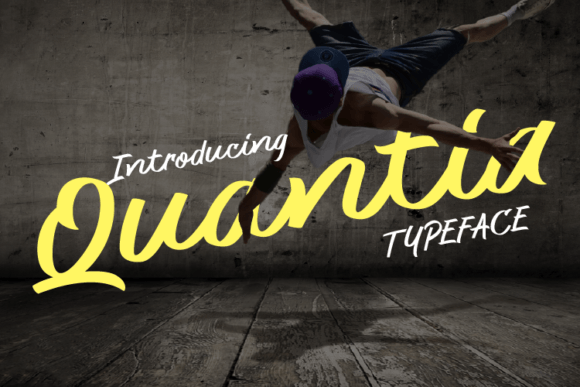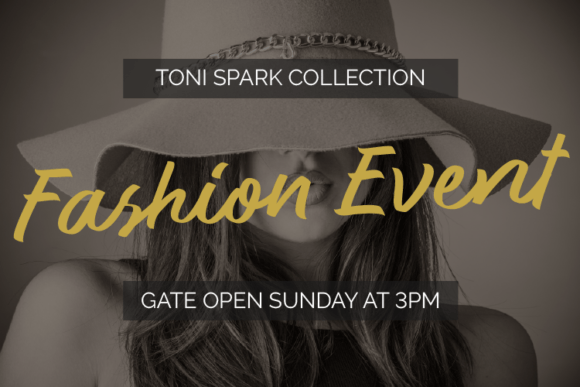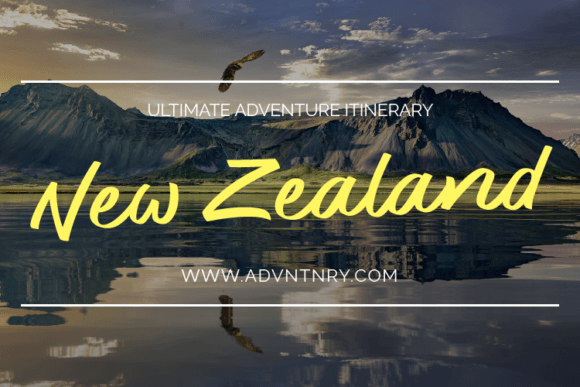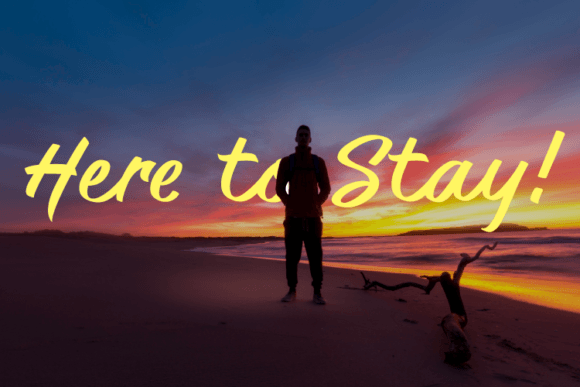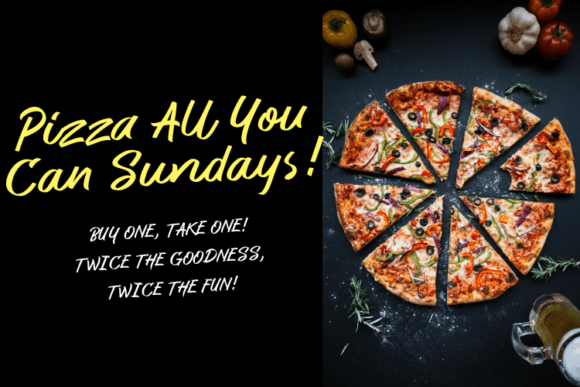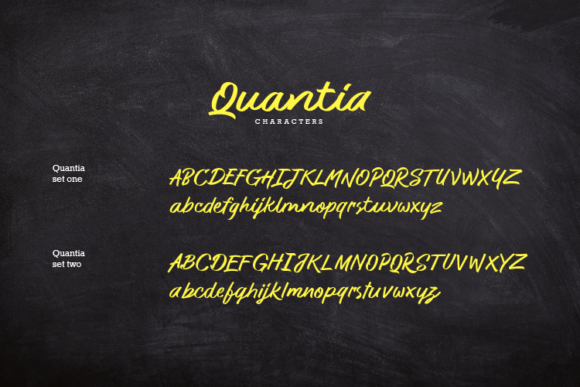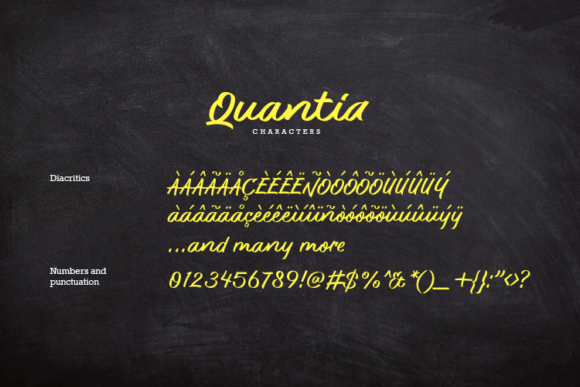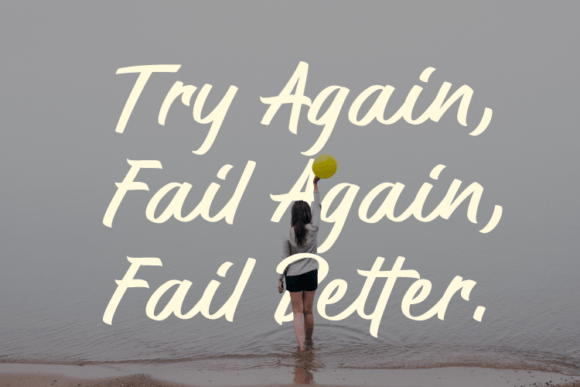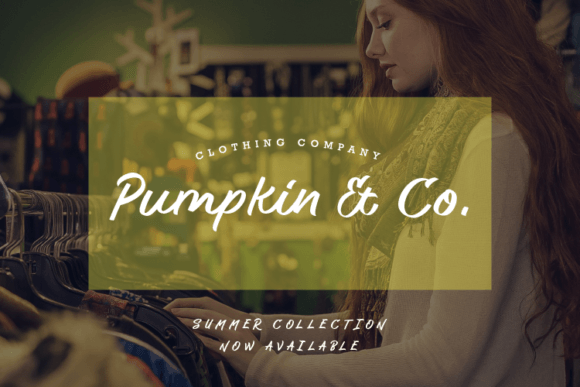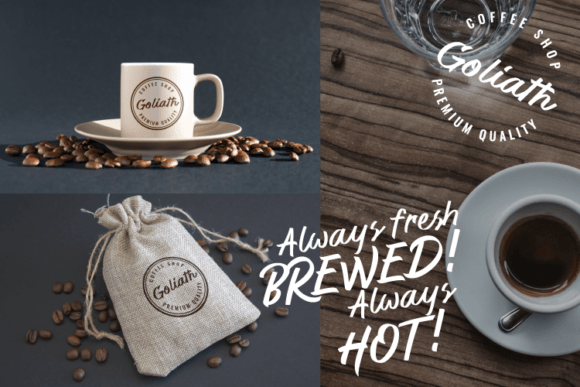
Quantia Font
About Quantia Font
Meet “Quantia,” a casual handwritten script font that exudes simplicity and class. With its uncomplicated yet stylish design, this font serves as a versatile asset for your font library. Regardless of the topic or project, “Quantia” has the potential to enhance any creation with its effortless charm and timeless appeal.
The beauty of “Quantia” lies in its simplicity. The casual handwritten script style adds a personal touch to your text, making it approachable and inviting. Whether you’re working on creative projects, invitations, branding, or any design that requires a touch of elegance, “Quantia” adapts seamlessly to various themes.
This font is a valuable addition to your font library, offering a go-to option for a range of design needs. Its versatility allows it to complement different topics and styles, making it a wonderful asset for both personal and professional projects. “Quantia” stands out as a reliable choice that can enhance the visual appeal of any creation.
Whether you’re crafting invitations for a special event, developing a brand identity, or working on other creative endeavors, “Quantia” brings a simple yet classy aesthetic. Its timeless style ensures that it remains relevant across different design trends and themes.
In summary, “Quantia” is more than just a font; it’s a design companion that effortlessly elevates your creations. Its casual yet classy style makes it a wonderful asset for a variety of projects, offering a touch of charm and sophistication. Add “Quantia” to your toolkit and let its simplicity enhance the impact of your designs.